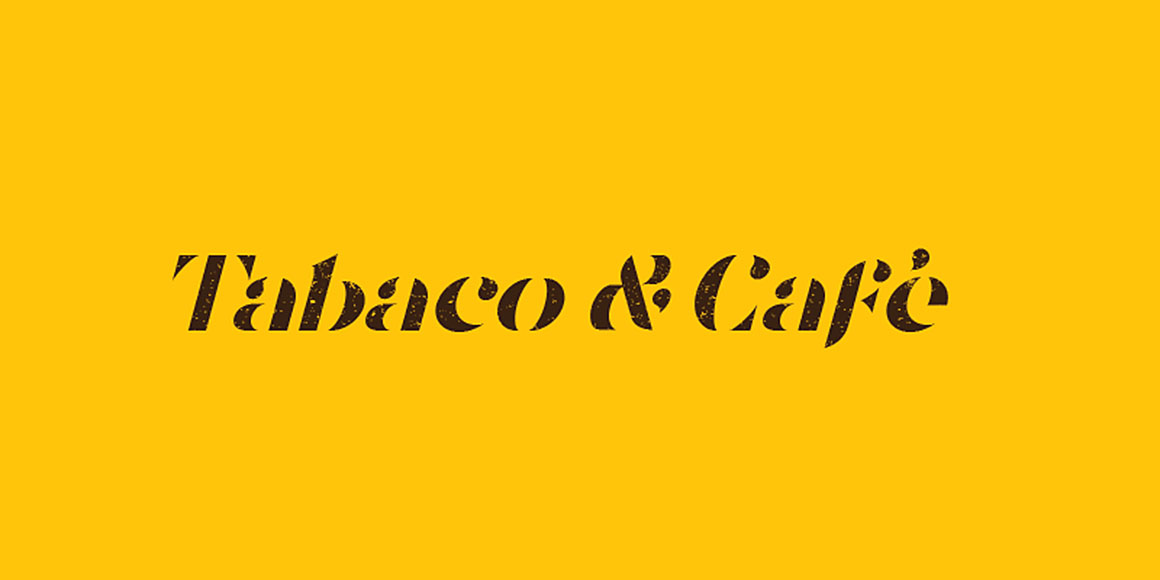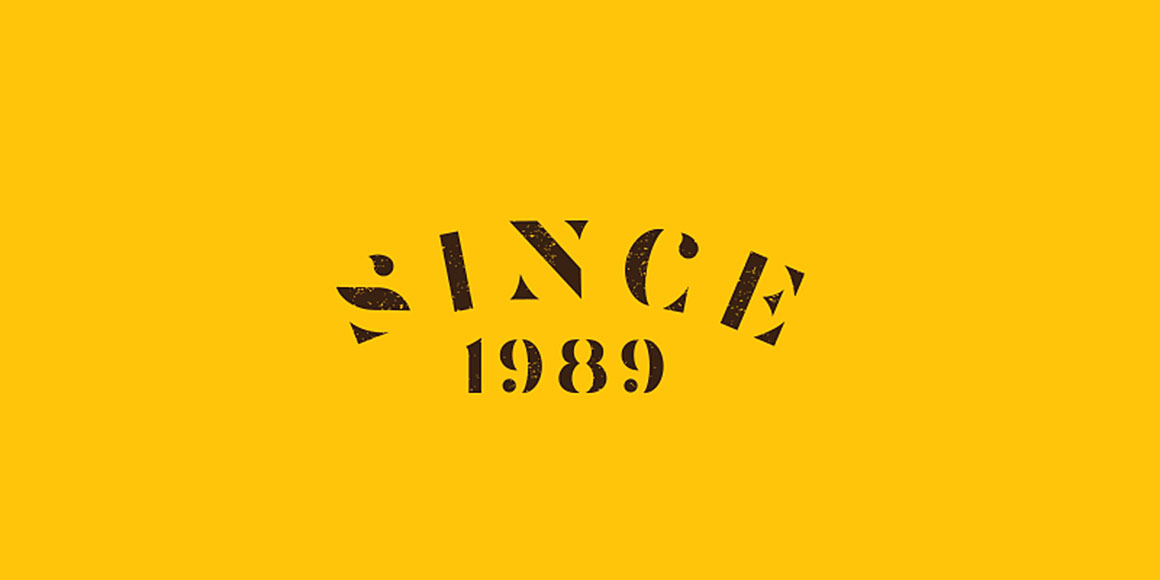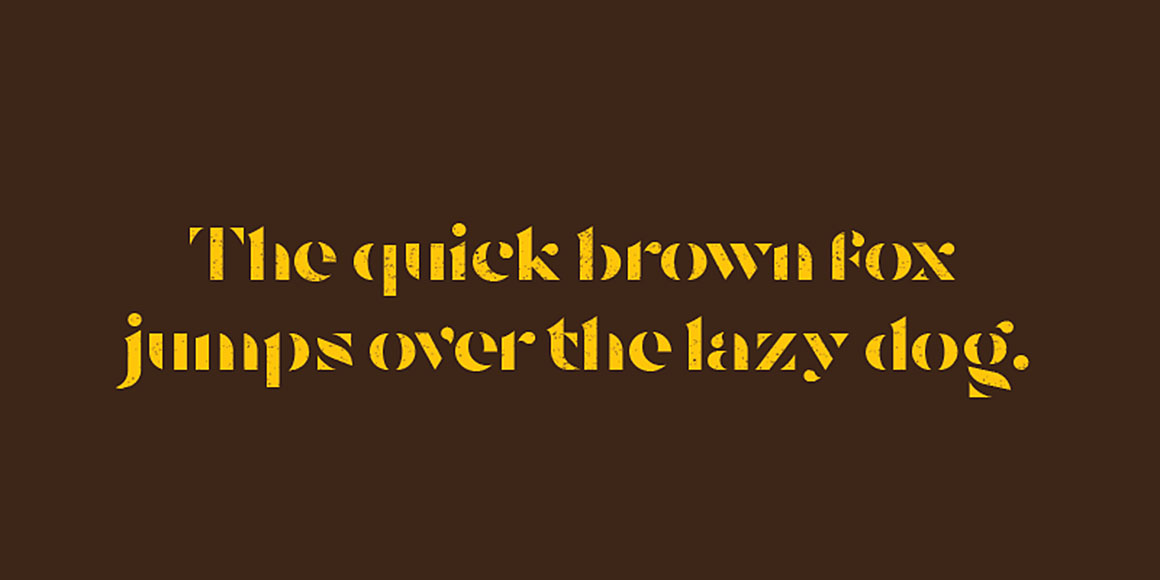
Tostada – Free Font
This cool vintage style custom font is from Iván Núñez. With unique vintage style is great for your new creative projects. Download and enjoy 😉